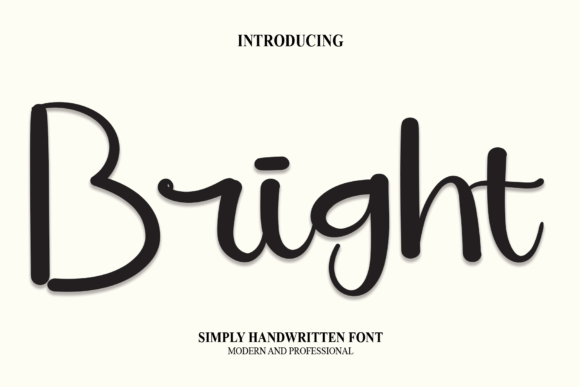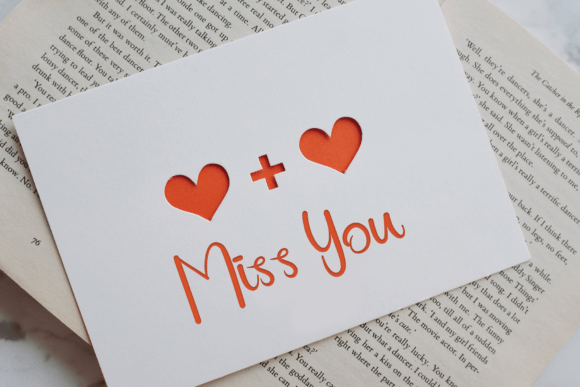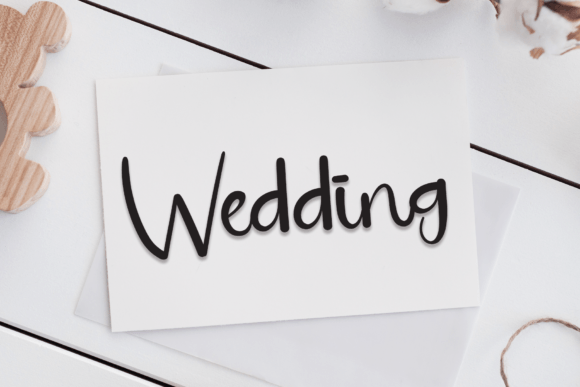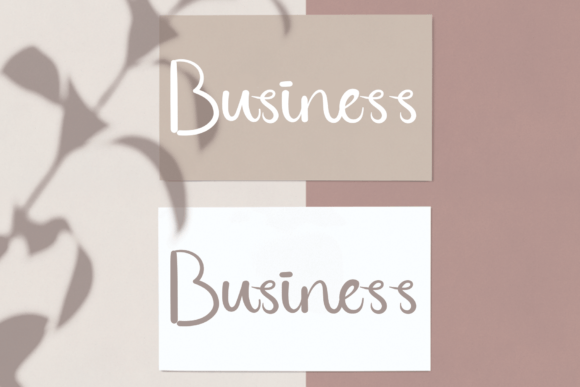
Bright Font
About Bright Font Download
The Bright Font Download is a fun and friendly handwritten script designed to bring warmth and charm to your creative projects. With its smooth handwritten curves and approachable style, this font is perfect for both personal and professional use. Whether you’re creating greeting cards, branding, or digital content, Bright adds joy and originality to every design.
A Fun Script with Creative Personality
The Bright script font blends casual handwritten lines with modern balance. As a result, it feels stylish, approachable, and versatile. Furthermore, it adapts seamlessly to small stationery projects and bold visual displays, which makes it a flexible option for designers.
Handwritten fonts always add personality and emotion to stationery. The Bright Font is ideal for wedding invitations, thank you cards, birthday greetings, and holiday notes. Because of its joyful handwritten flow, every card feels heartfelt and unique. In addition, it ensures your stationery projects leave a memorable impression.
Branding and Logo Design with Bright Font
Typography defines the voice of a brand. The Bright handwritten font is excellent for boutique logos, packaging, and promotional campaigns. Its playful handwritten style creates a professional yet friendly image. Therefore, it is especially effective for lifestyle, fashion, and creative industries.
Posters, Titles, and Editorial Displays
The Bright Font Download also shines in posters, magazines, banners, and book covers. It maintains clarity in every size while adding handwritten charm. Consequently, it is a dependable choice for designers who value both creativity and readability.
In today’s digital landscape, fonts must be engaging and adaptable. The Bright typeface integrates smoothly into Instagram posts, YouTube thumbnails, Pinterest pins, and blogs. Because of its fun handwritten look, it ensures your digital projects appear stylish and modern.
Why Designers Choose Bright Typeface
Designers love fonts that balance creativity with usability. The Bright handwritten script maintains its joyful spirit while staying clear and legible. This makes it a reliable option for both professionals and hobbyists. Moreover, its timeless handwritten design ensures it stays relevant for years to come.
Add Playful Charm to Your Projects Today
If you’re looking for a handwritten script that feels fun, friendly, and versatile, the Bright Font Download is the perfect choice. From invitations and cards to posters, branding, and digital content, it enhances every project with handwritten elegance. Finally, download Bright today and let your designs shine with charm and creativity.